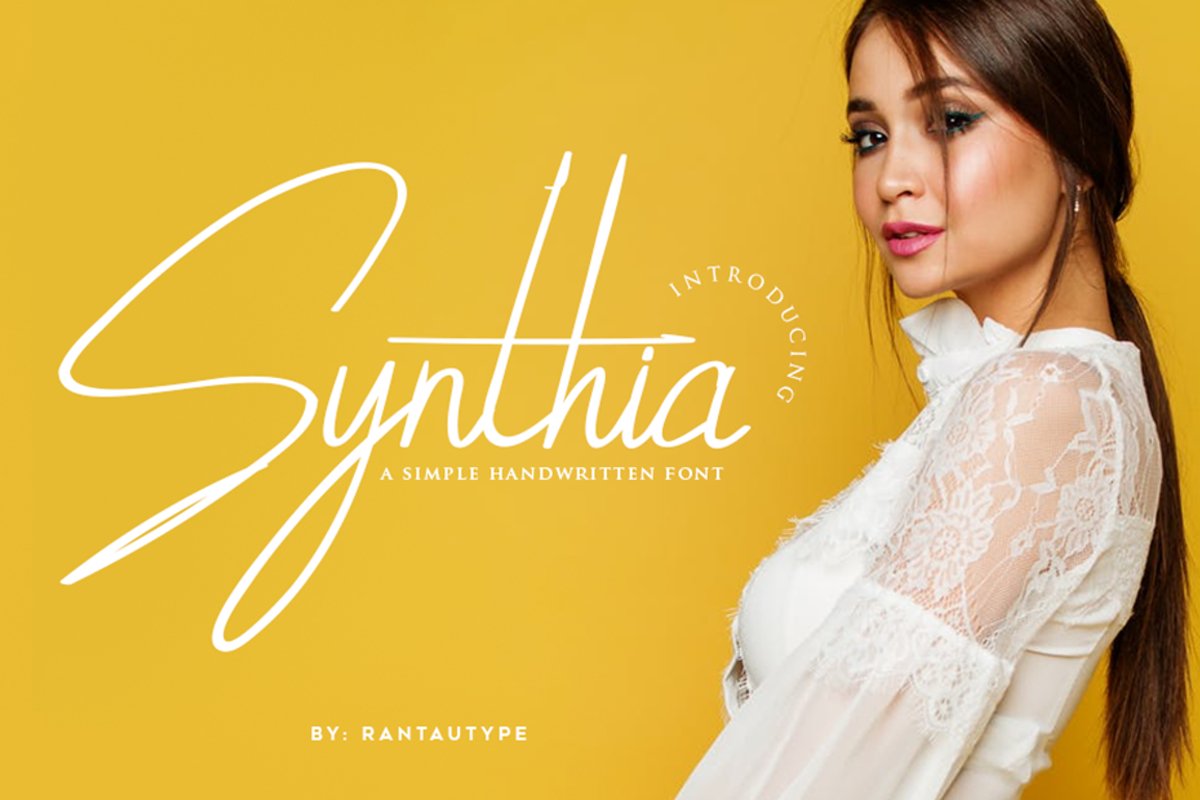
Created By Rantautype
This font take simple of women with all their softness as inspiration and then make this font looks sophisticated classy. This font functions most strongly as a display or headline font. suitable for logo, logotype, branding,wedding, fashion, label, book cover, t-shirt, instagram post, and other
Basic Latin Aa-Zz
Swashes
Numbers
Alternate
Ligature